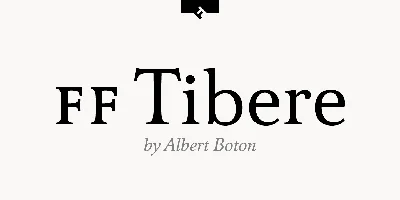
FF Tibere Font
FF Tibère Font
FF Tibère Font is perfect for Roman historical presentations, classical architecture portfolios, ancient civilization documentaries, imperial brand identities, museum exhibition catalogs, archaeological publications, historical fiction book covers, luxury heritage marketing, academic classical studies, and prestigious cultural event materials.
What makes FF Tibère Font exciting is its magnificent ability to channel the imperial grandeur and architectural splendor of ancient Rome through meticulously crafted letterforms that embody the power, sophistication, and enduring legacy of one of history's greatest civilizations. This extraordinary typeface features commanding characters with classical proportions and monumental presence that reflect the carved inscriptions of Roman monuments and the authoritative proclamations of emperors. The font's imperial personality combines historical authenticity with contemporary functionality, creating typography that feels both ancient and eternally powerful. Each character demonstrates masterful construction with strong verticals, balanced proportions, and dignified spacing that evoke the marble columns of the Pantheon and the golden letters of imperial decrees, making every word appear as enduring and significant as the monuments of the Eternal City.
The FF Tibère Font family includes majestic variations: FF Tibère Regular, FF Tibère Bold, FF Tibère Light, FF Tibère Medium, FF Tibère Condensed, FF Tibère Extended, and FF Tibère Capitals. Each style maintains the signature imperial character while offering different levels of monumentality for creating compelling historical narratives and distinguished cultural communications that honor Roman heritage.
Whether you're designing museum exhibitions about ancient Rome, creating educational materials on classical civilization, or developing luxury brands with imperial heritage, FF Tibère Font offers exceptional typography that commands respect and captures the timeless authority of Roman imperial tradition. This remarkable typeface successfully bridges ancient Roman grandeur with modern design requirements, making it an invaluable resource for projects requiring historical gravitas and cultural significance.
The font's imperial character makes it particularly effective for museums and cultural institutions presenting Roman artifacts, archaeological discoveries, and classical art collections where typography must match the monumental significance of displayed treasures. FF Tibère Font communicates ancient authority and imperial dignity, essential qualities for educational environments where visitors seek authentic connections to Roman civilization and classical heritage. Luxury brands frequently choose this typeface for marketing materials, where its commanding appearance reinforces associations with timeless quality and imperial craftsmanship.
Academic institutions and scholarly publishers find FF Tibère Font especially valuable for classical studies programs, ancient history textbooks, and archaeological journals where authentic typography enhances scholarly credibility while honoring the subject matter's cultural importance and historical significance.
FF Tibère Font's distinctive character makes it ideal for architectural firms specializing in classical design, neoclassical restoration projects, and monuments where typography must reflect the enduring principles of Roman architectural excellence and structural engineering that continue to influence contemporary construction.
Travel companies and cultural tourism organizations appreciate how FF Tibère Font enhances promotional materials for Roman destinations, archaeological tours, and classical heritage experiences by providing typography that immediately communicates the gravitas and cultural significance of visiting ancient Roman sites.
The technical excellence of FF Tibère Font includes carefully preserved classical proportions adapted for modern applications, ensuring consistent quality whether used in large-format museum displays, detailed academic publications, or prestigious brand communications requiring sustained reading comfort.
For creative professionals seeking typography that embodies Roman imperial majesty and classical authority, FF Tibère Font represents the perfect choice for projects requiring authentic historical character and monumental presence that honors the architectural and cultural achievements of ancient Rome's greatest emperors and builders.